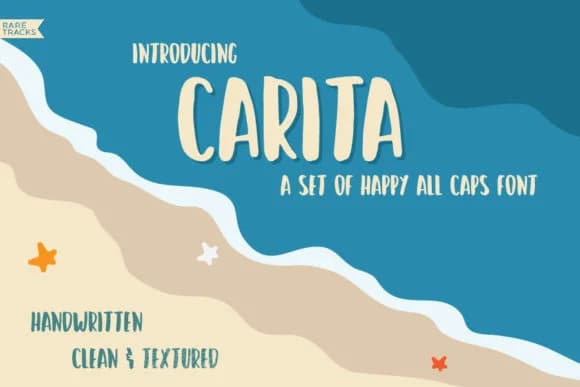
Carita Font by svitch and sober is a spirited all-caps script typeface that brings genuine energy and personality to creative work. The designers have crafted dynamic letterforms that balance playful character with visual presence, making this font particularly suited to projects where distinctive styling helps communicate brand voice or creative intent.
This typeface excels for celebration stationery and event signage, especially wedding invitation suites and programs that benefit from warmth and visual charm. It translates beautifully to branding for small creative businesses and boutiques seeking a strong typographic voice, as well as to custom greeting cards and scrapbooking layouts that demand visual interest. DIY makers and craft enthusiasts find it invaluable for decorative project signage, product label design, and artistic social media graphics that need to stand out from standard typography.
As an all-caps design, Carita maintains consistent visual impact throughout extended use while preserving the handcrafted warmth that script typefaces bring to contemporary creative work. The font's engaging character makes it particularly valuable for designers seeking strong alternatives to traditional uppercase options that still convey warmth and approachability. Get Carita Font on Creative Fabrica and add this energetic personality to your next creative project.
Carita Font is a script font that shines as a display or heading face. Pair it with a clean sans-serif or serif font for body text β the contrast creates a clear hierarchy while the two styles stay balanced and easy to read.